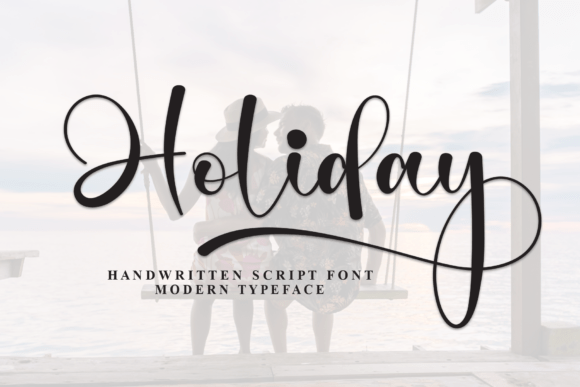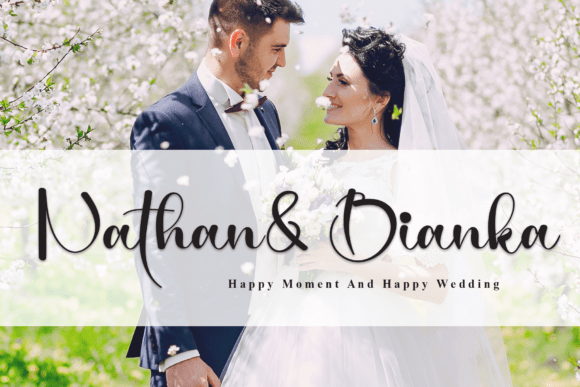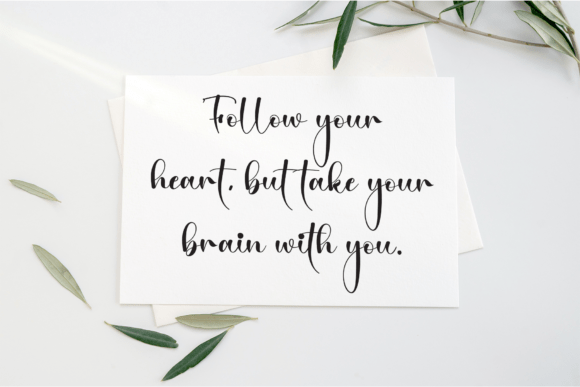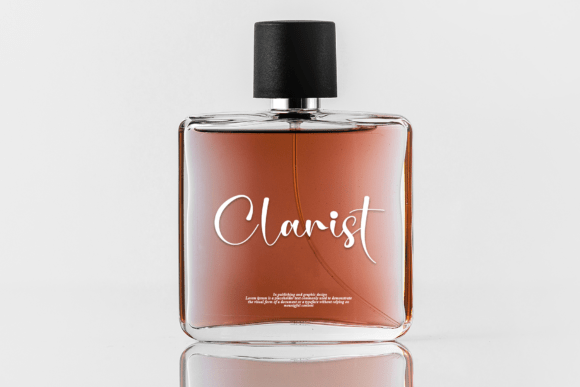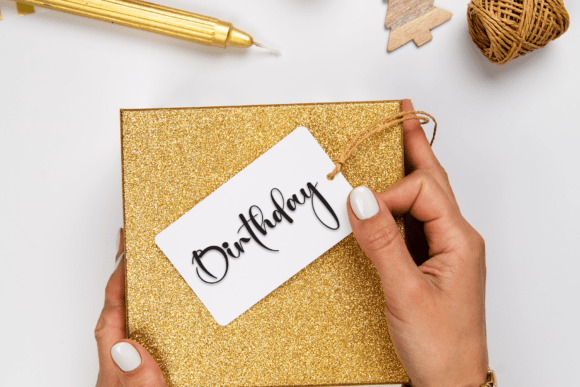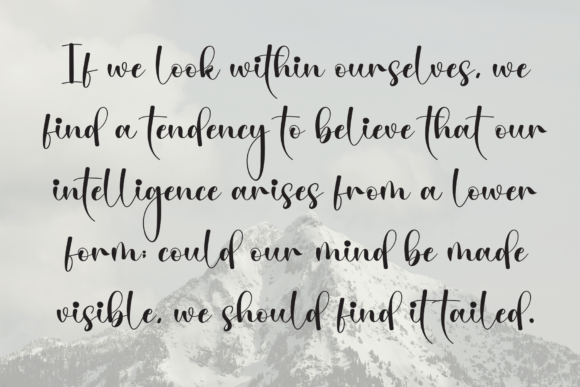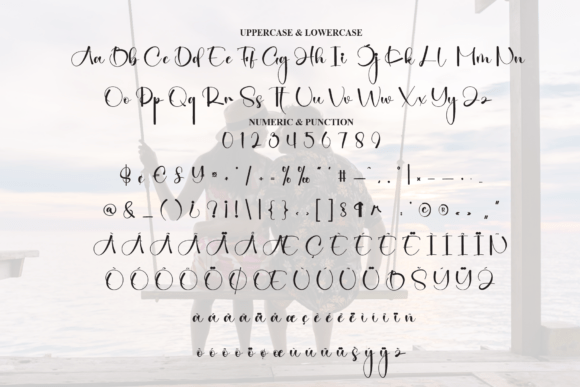
The Perfect Font for a Season of Creativity
As a designer, you know that sometimes the perfect font can make all the difference between a good design and a great one. Remember that moment when you’re working on a project and you stumble upon the perfect font that seems to capture the essence of your vision? It’s like finding a missing piece of a puzzle, and suddenly everything falls into place.
Enter Holiday Font, a stylish script font that exudes artistic flair and contemporary elegance. This versatile font is perfect for designers who want to add a touch of sophistication and creativity to their work. With its fluid brush strokes, dynamic curves, and expressive letterforms, Holiday Font captures the essence of hand-painted calligraphy with a modern twist.
Whether you’re designing logos, invitations, packaging, or social media graphics, Holiday Font is a valuable addition to your design toolkit. Its natural flow and vibrant character deliver both visual impact and versatility, making it a must-have font for any designer looking to elevate their work.
Holiday Font Key Features
- Unique Characteristics: Holiday Font features a unique, hand-drawn design with a festive and playful feel, making it perfect for holiday-themed designs, invitations, and packaging.
- Style Variations: Holiday Font comes in multiple style variations, including regular, bold, italic, and bold italic, allowing designers to add depth and variety to their designs.
Holiday Font Review
Overall, I think the Holiday Font has some lovely qualities that make it a great addition to any festive design project. ✨
- Unique and quirky design elements that add a touch of whimsy to your designs ✨
- Well-suited for holiday-themed projects, such as Christmas and New Year’s Eve designs
- Supports a wide range of languages, making it a versatile choice for designers working on global projects
However, I do think there are a few limitations to consider. ⚠️
- Not ideal for use in body text, as it can be quite ornate and difficult to read in large quantities ⚠️
- May not be suitable for corporate or formal designs, as it’s quite playful and festive
- Some characters may not display correctly in certain fonts or software
Overall, I think the Holiday Font is a great choice for designers looking to add some festive flair to their projects. Just be mindful of its limitations and use it thoughtfully. ✨
Tips for Getting the Most Out of the Holiday Font
Use the Holiday Font to add a festive touch to your designs, especially during the holiday season. Experiment with different font sizes and colors to create a cohesive look.
The Holiday Font is commonly used in:
- Christmas and New Year’s Eve invitations and cards.
- Thanksgiving and Halloween party invitations and decorations.
- Holiday-themed social media graphics and ads.
Alternatives to Holiday Font
Great Vibes is a modern, elegant script font that is perfect for creating a warm and inviting atmosphere. It is ideal for use in invitations, greeting cards, and other holiday-related designs. Compared to Holiday Font, Great Vibes has a more refined and sophisticated look, making it suitable for high-end designs.
Carolyna Pro is a luxurious, hand-drawn script font that exudes elegance and sophistication. It is ideal for use in high-end designs, such as luxury brand identities, invitations, and special occasion materials. Compared to Holiday Font, Carolyna Pro has a more polished and refined look, making it suitable for premium designs.
Cream Soda is a playful, cursive script font that is perfect for creating a fun and festive atmosphere. It is ideal for use in designs related to summer holidays, such as 4th of July celebrations, beach parties, and outdoor events. Compared to Holiday Font, Cream Soda has a more casual and relaxed look, making it suitable for casual designs.